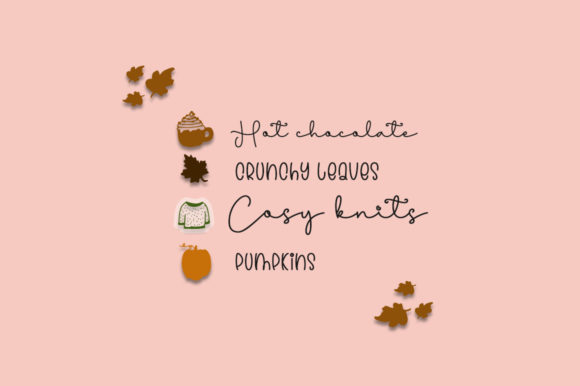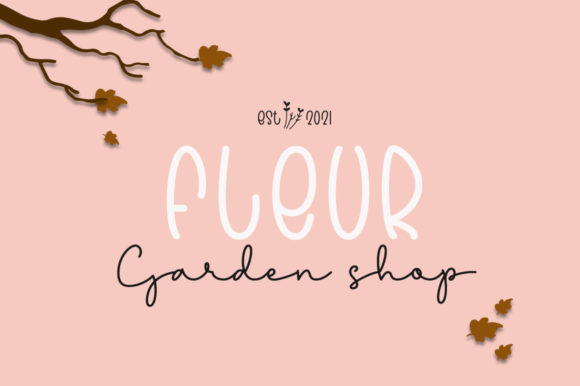
Cuties Autumn Duo Font
db-ku.com - Script & Handwritten -- Cuties Autumn Duo is a lovely duo font (display and script). This font is PUA encoded which means you can access all of the glyphs and swashes with ease!